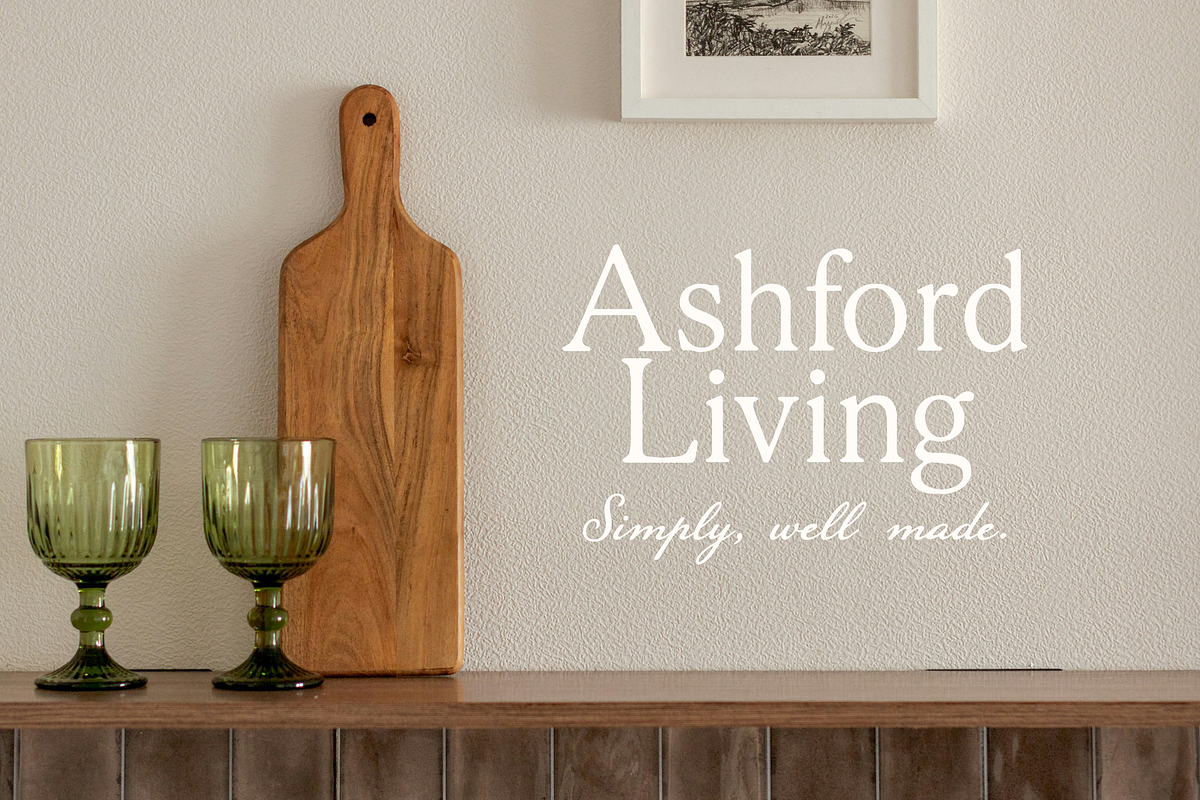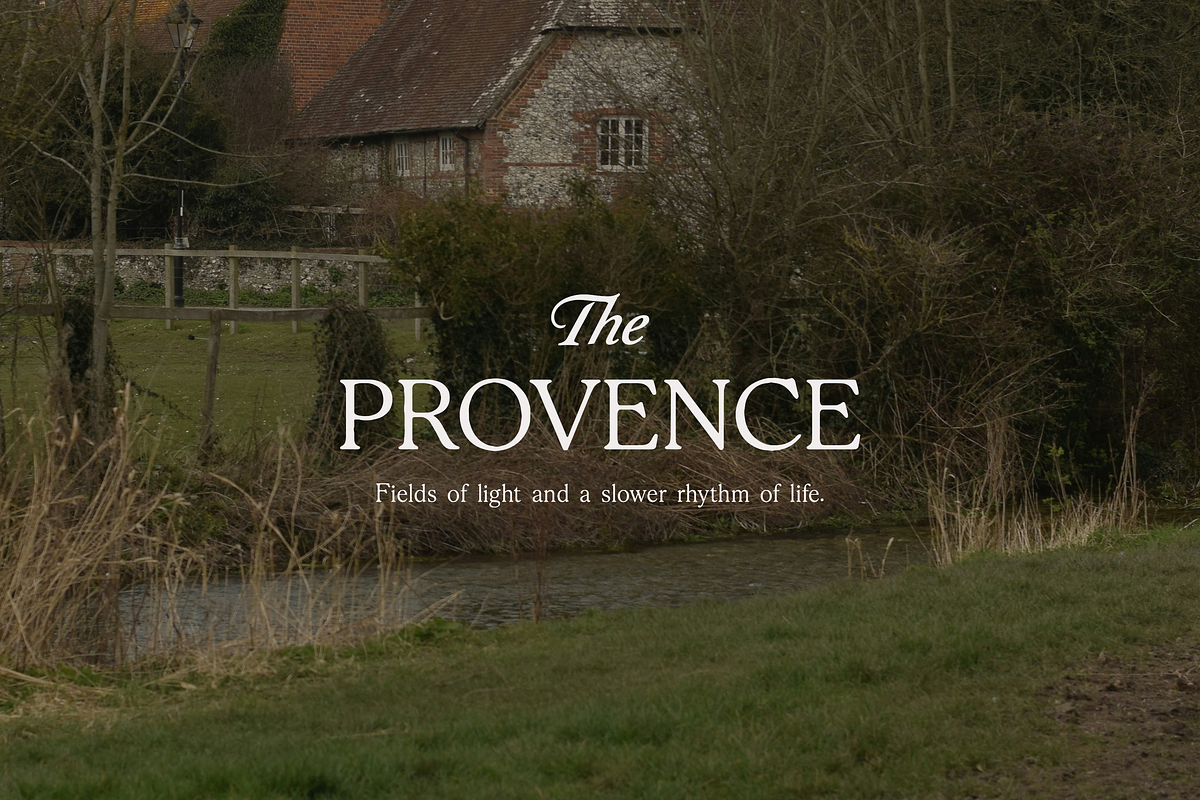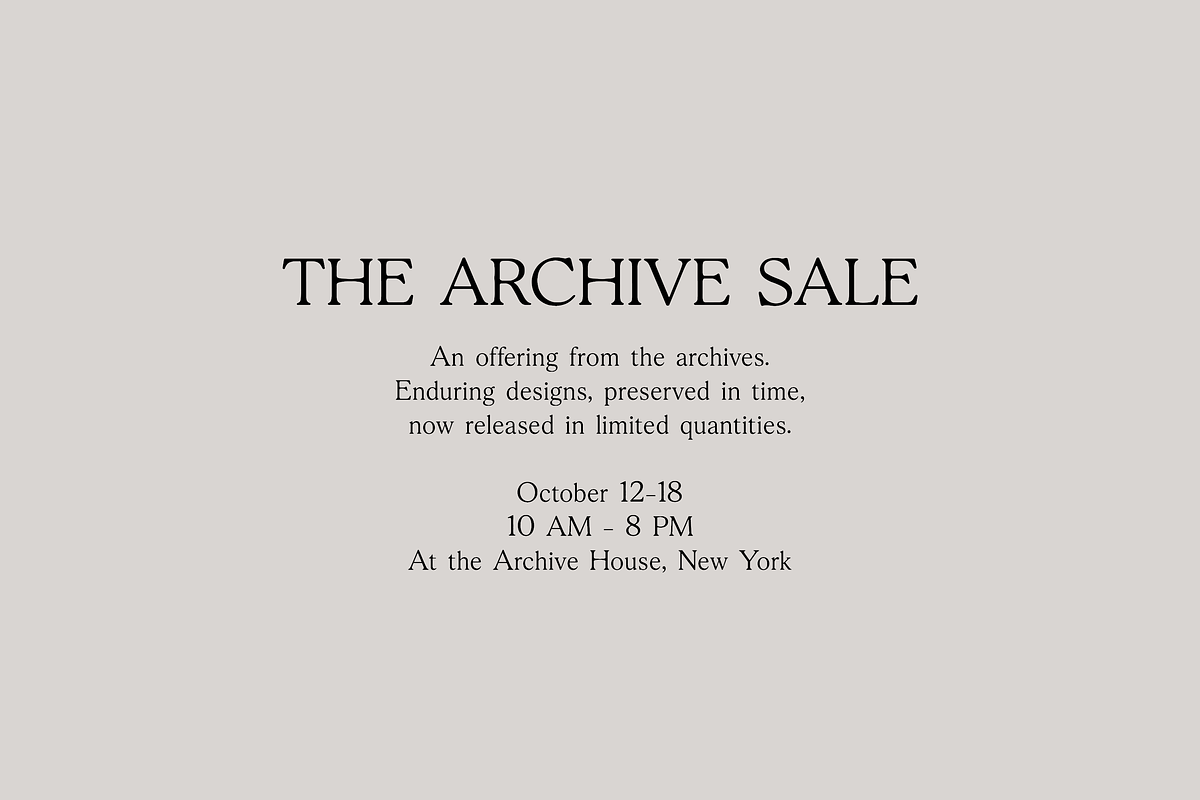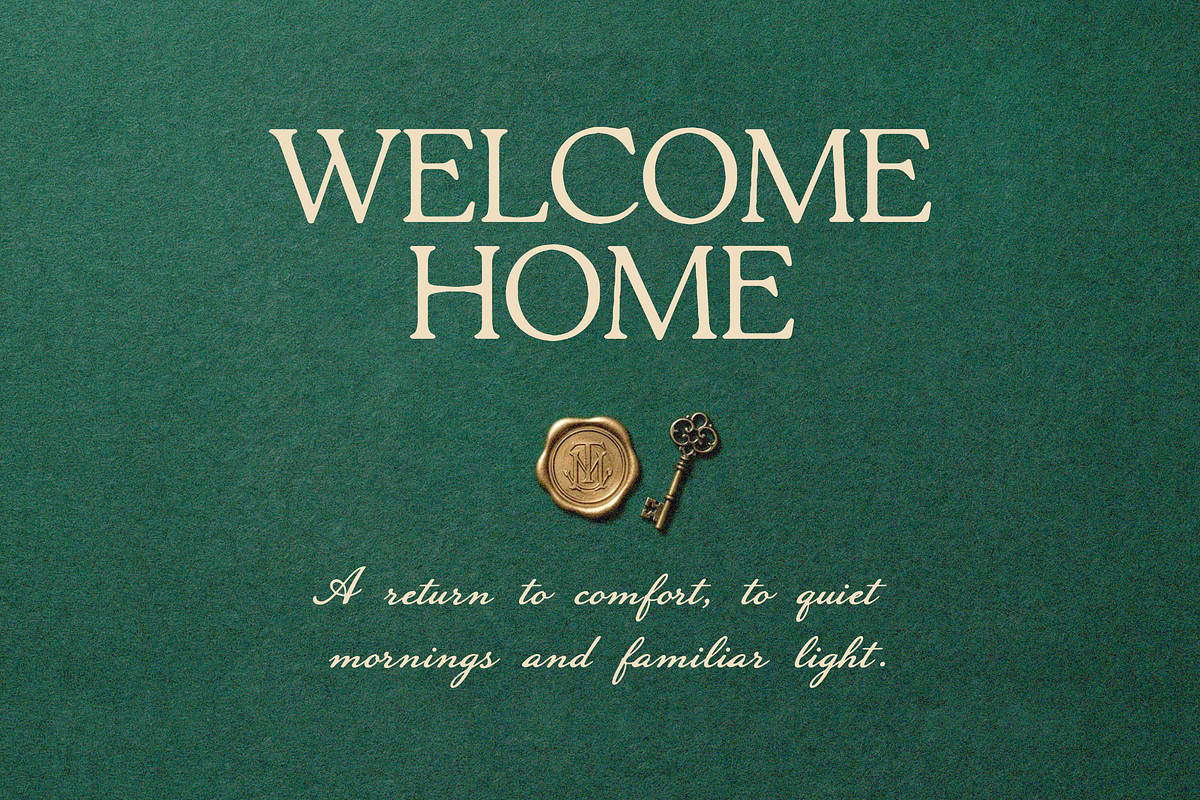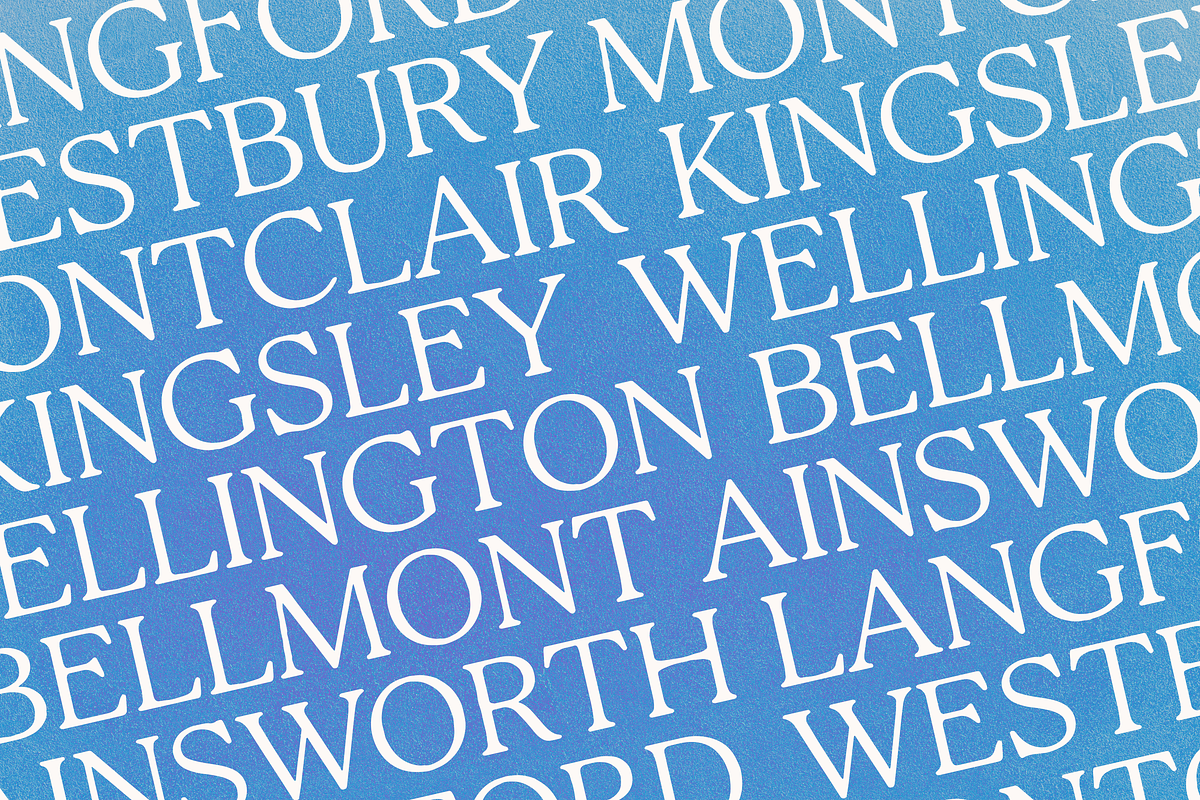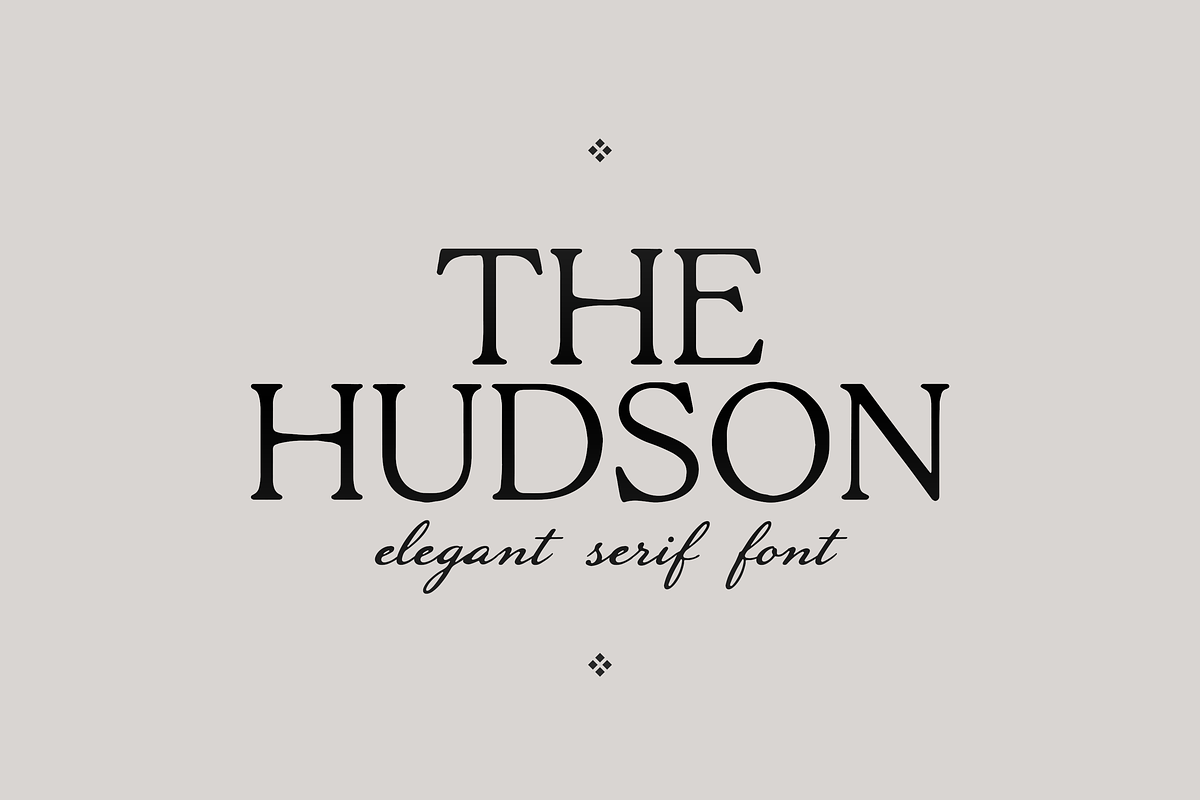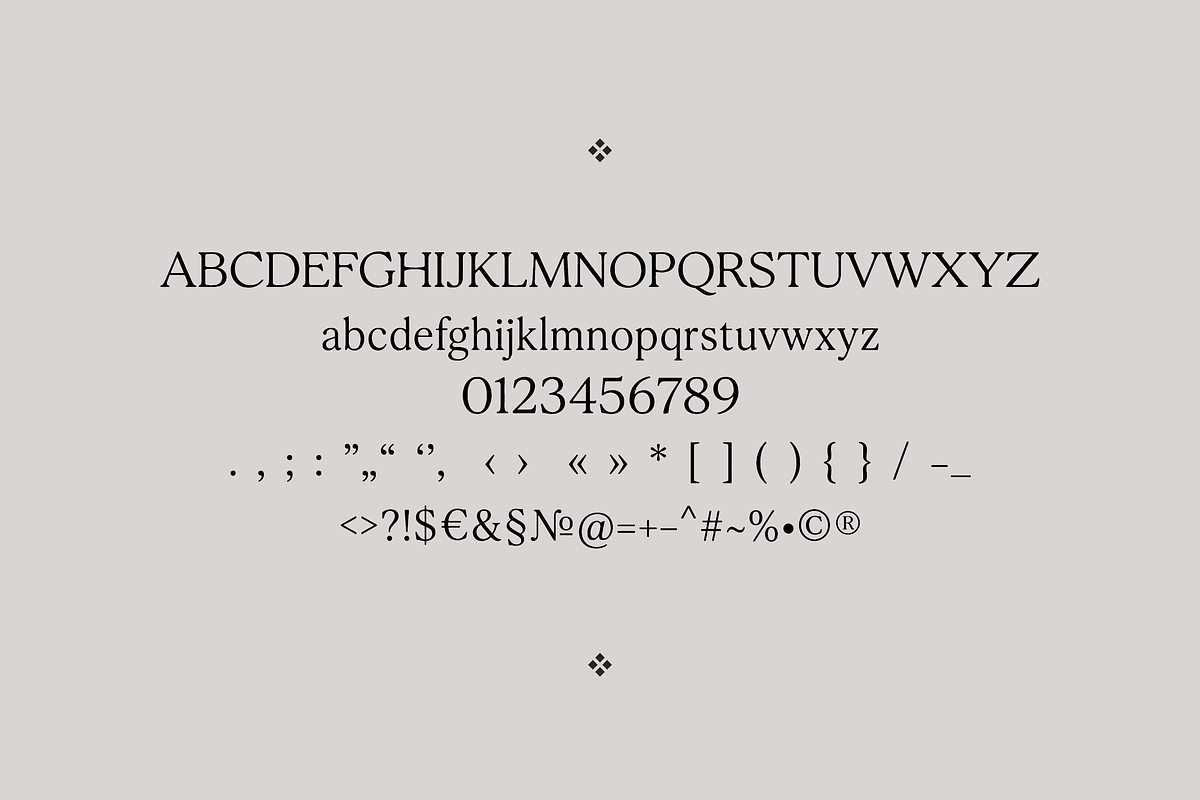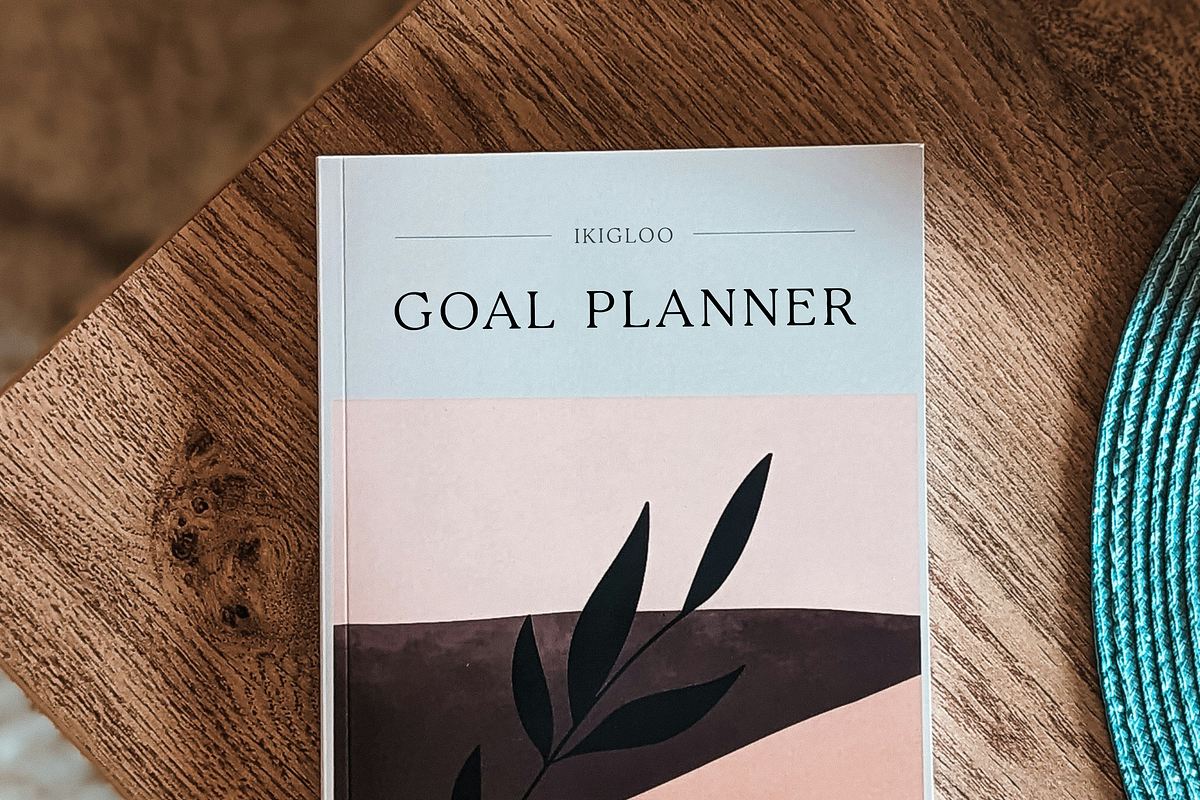
The Hudson Serif
The Hudson is an elegant high-contrast serif typeface inspired by timeless editorial design and classic old money aesthetics.
With refined proportions, graceful curves, and subtle contrast, Hudson brings a sense of quiet luxury and sophistication to any project. It is perfect for branding, logos, wedding invitations, fashion editorials, and premium packaging.